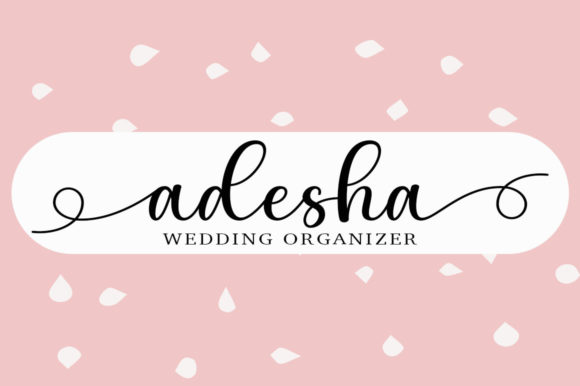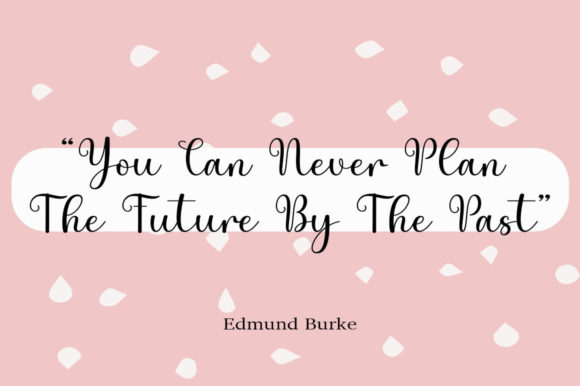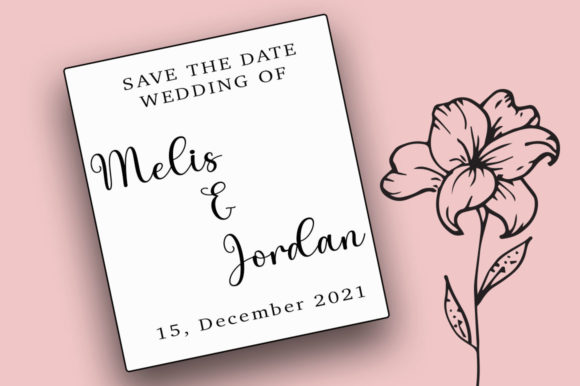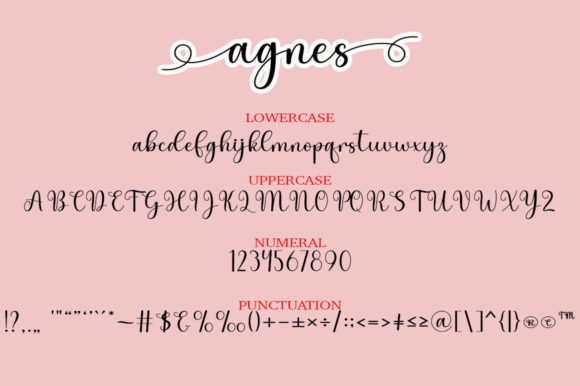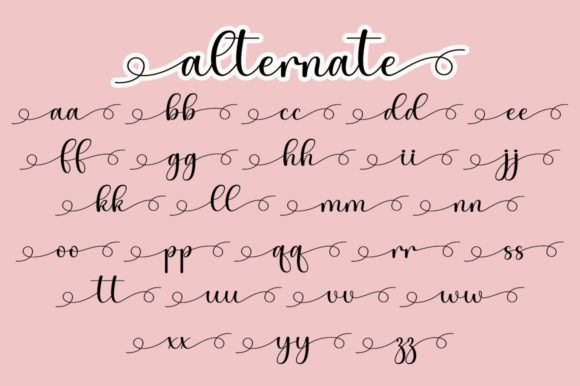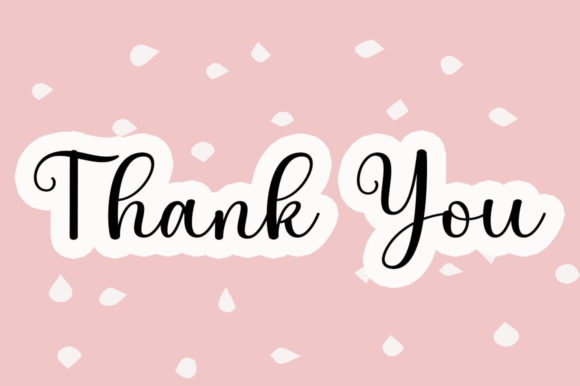
Introducing Agnes Font: The Playful Script Font to Elevate Your Designs
Are you tired of using the same old fonts in your designs? Look no further than Agnes Font, a lovely script font that is sure to add a touch of charm and playfulness to your creative projects. With its whimsical characters that seem to dance along the baseline, Agnes Font is the perfect addition to your font collection.
What Makes Agnes Font Special?
Agnes Font is a unique and eye-catching script font that features charming, playful characters that are sure to make your designs stand out. Its distinctive style is perfect for adding a touch of personality to your projects, whether you’re working on a branding campaign, creating social media graphics, or designing a website.
One of the standout features of Agnes Font is its PUA (Private Use Area) encoding. This means that you can access all glyphs and swashes with ease, giving you maximum flexibility and creative control over your designs. Whether you’re a seasoned designer or a crafty DIY enthusiast, Agnes Font is easy to use and accessible.
Agnes Font is a versatile font that is perfect for a wide range of design projects. Whether you’re creating:
- Social media graphics, like Instagram posts and Facebook covers
- Websites, including headers, titles, and body text
- Stationery, like invitations, thank-you cards, and gift tags
- Crafting projects, such as scrapbooking, journaling, and card-making
Agnes Font is the perfect choice. Its playful and charming style is sure to add a touch of personality to your designs and make them stand out.
Key Features of Agnes Font
Here are just a few of the key features that make Agnes Font so special:
- Charming, playful characters: Each character in Agnes Font has been carefully crafted to be unique and eye-catching, with a playful style that is sure to delight.
- PUA encoded: With PUA encoding, you can access all glyphs and swashes with ease, giving you maximum creative control over your designs.
- Versatile: Agnes Font is perfect for a wide range of design projects, from branding and social media to crafting and stationery.
How to Use Agnes Font in Your Designs
- Pair it with a bold font: Agnes Font pairs perfectly with bold, sans-serif fonts. Try pairing it with a font like Arial Black or Helvetica Bold for a striking contrast.
- Use it for headings and titles: Agnes Font is perfect for headings and titles, where its playful style can really shine.
- Experiment with colors: Agnes Font looks great in a range of colors, from bright and bold to soft and pastel. Experiment with different colors to find the perfect look for your design.
If you’re looking for a font that will add a touch of charm and playfulness to your designs, look no further than Agnes Font. With its unique and eye-catching style, PUA encoding, and ease of use, Agnes Font is the perfect addition to your font collection. Whether you’re a designer, crafter, or DIY enthusiast, Agnes Font is sure to elevate your creative projects and make them stand out.